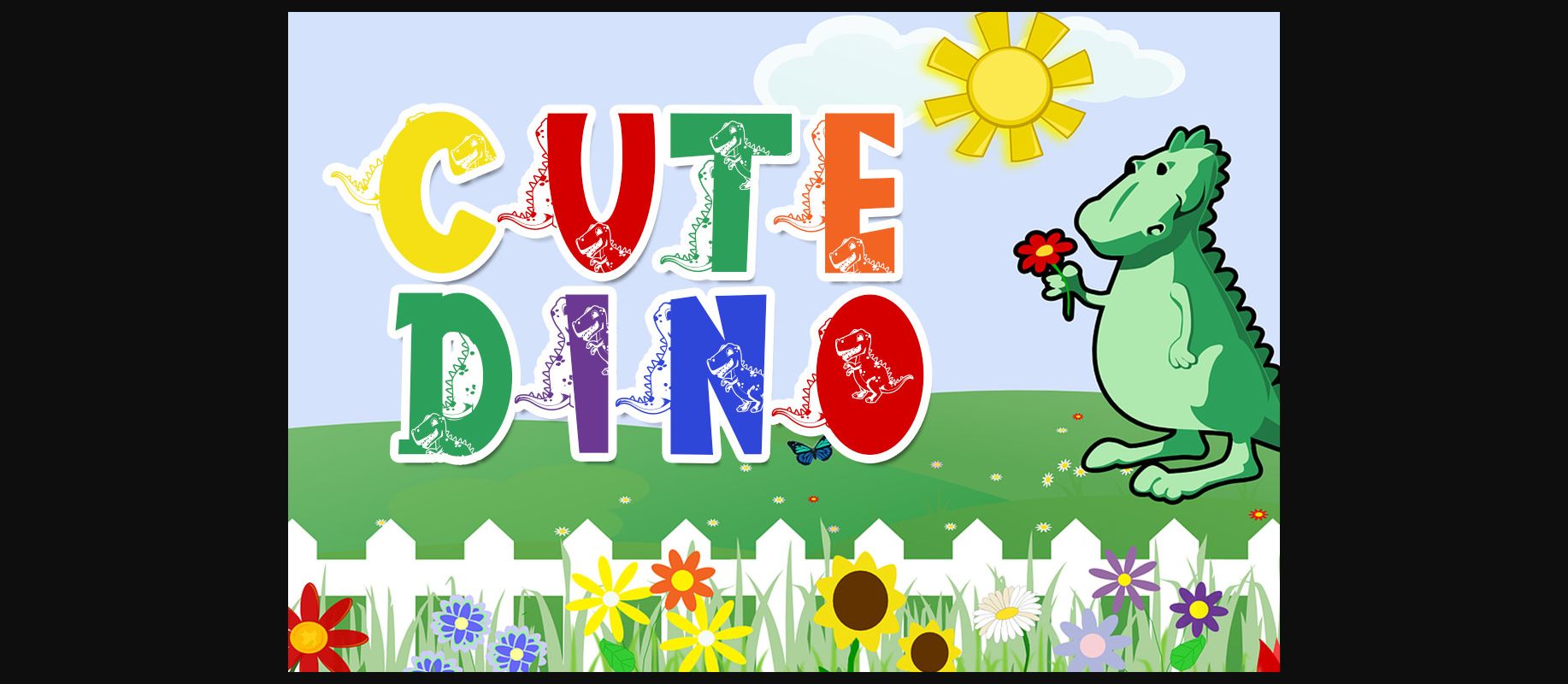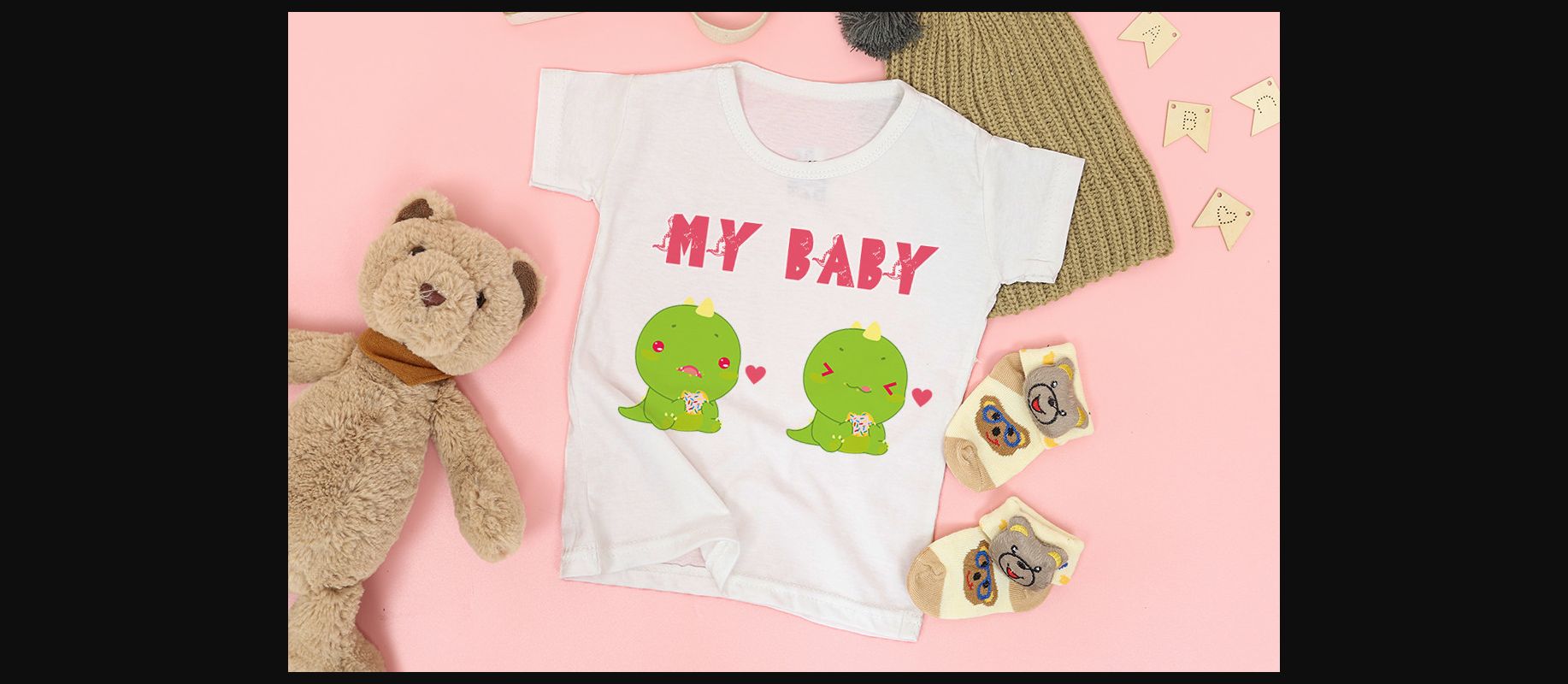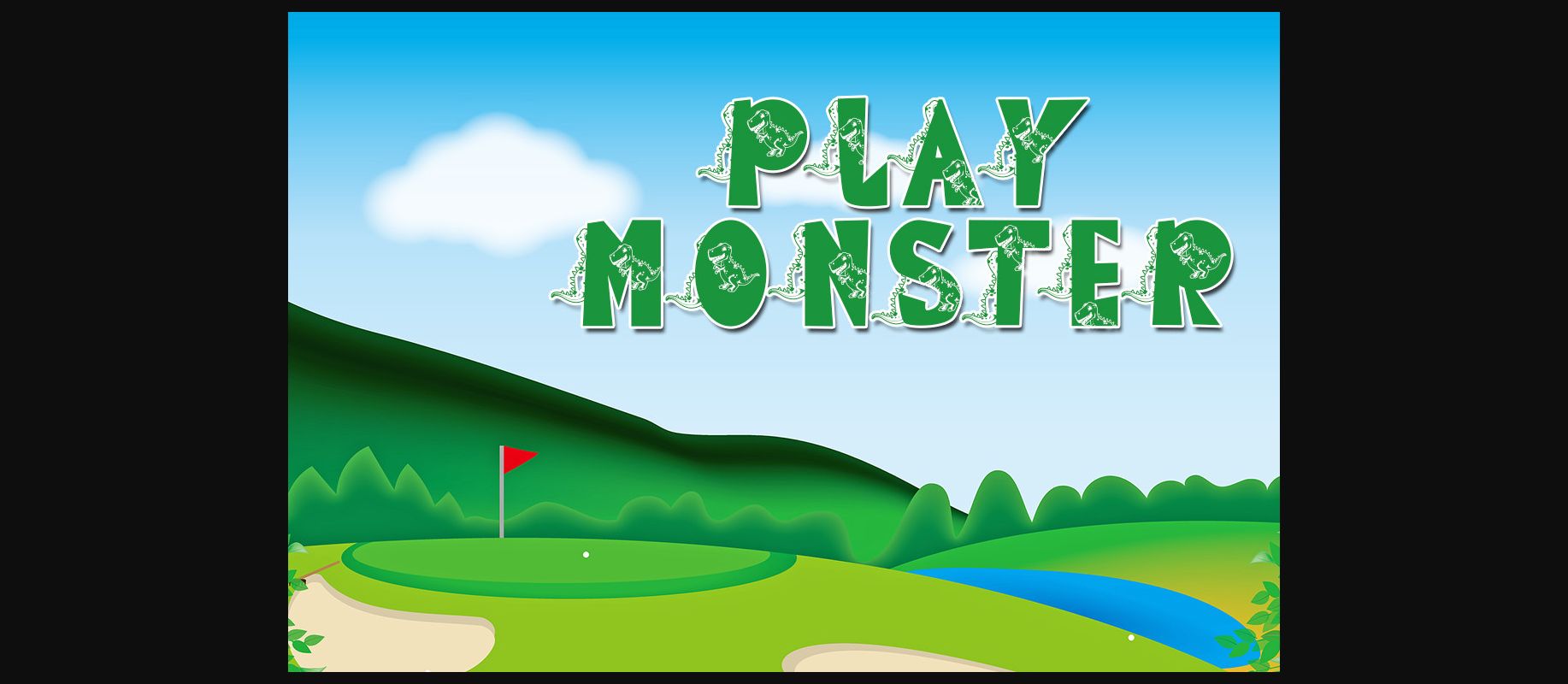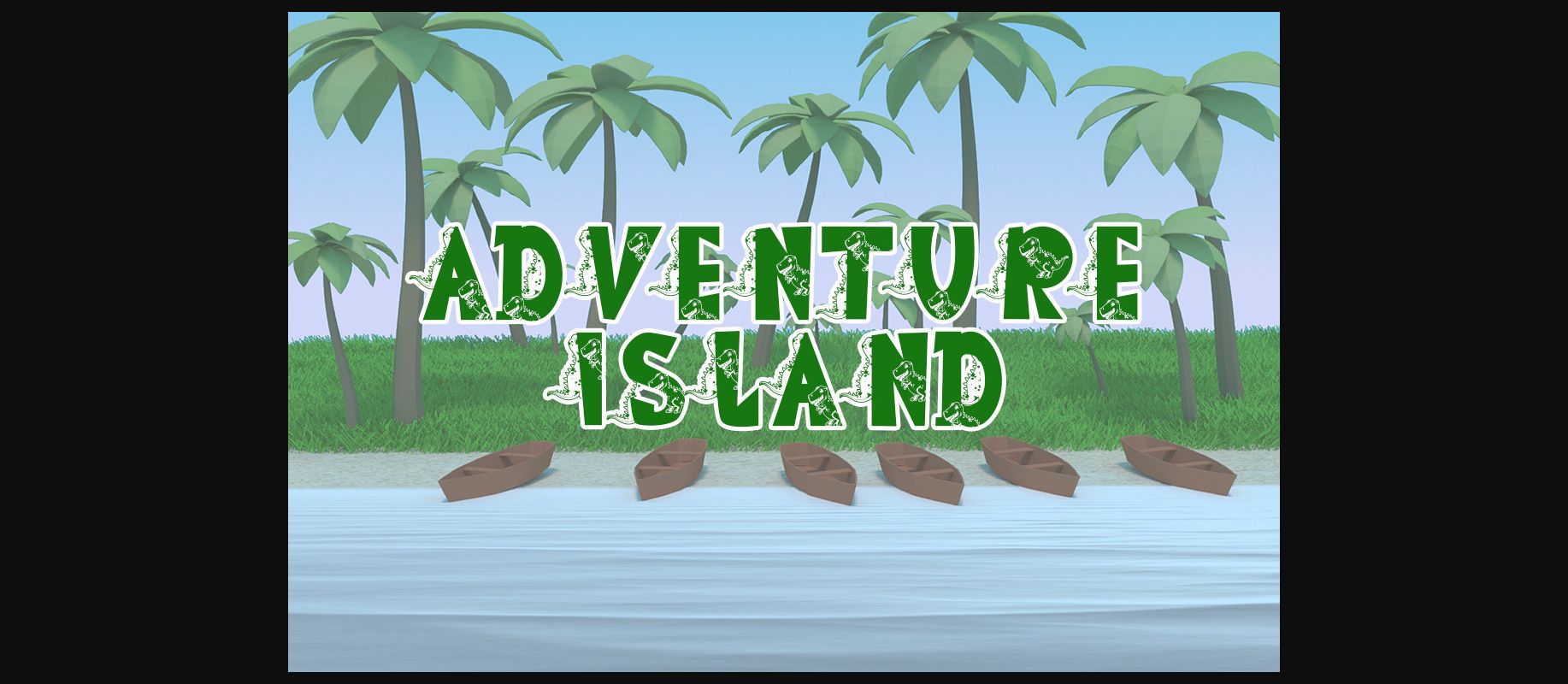
Cute Dino Font
About Cute Dino Font
Cute Dino is a beautiful and sweet decorative font. It is fresh, clean, and elegant. It will look amazing in a great amount of projects, both formal and informal designs.